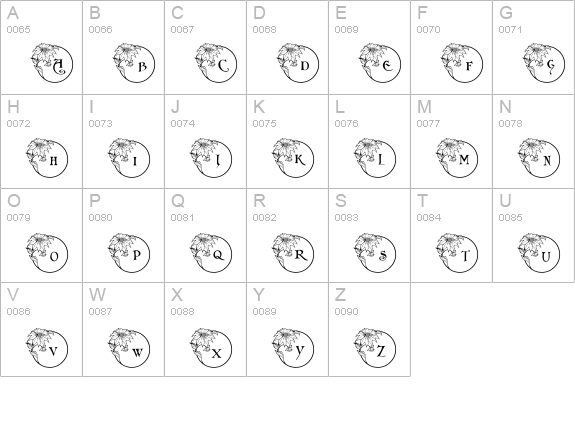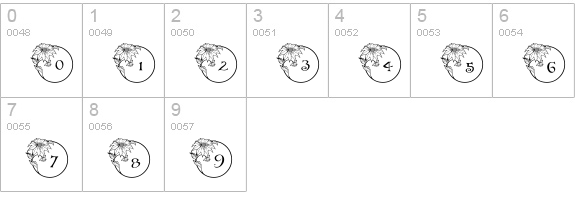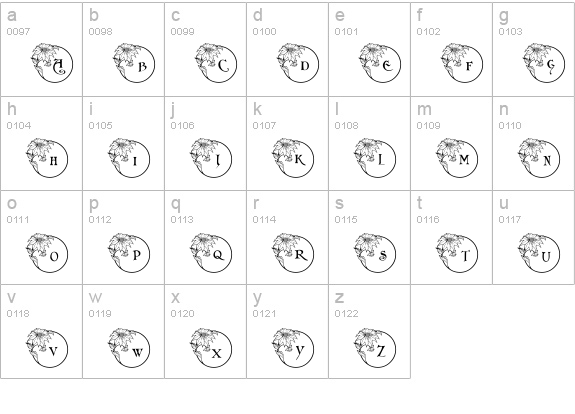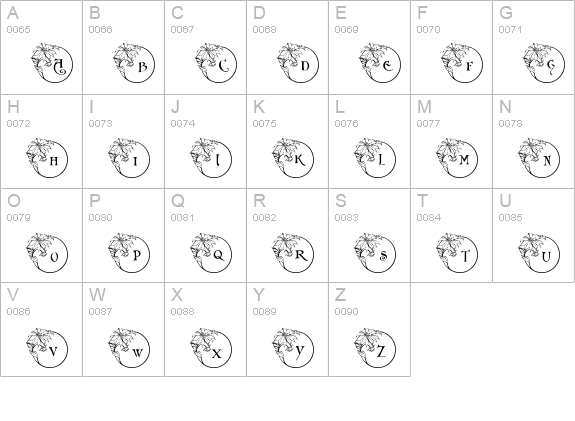
pf_xmas_flower1 Font Details
Introducing pf_xmas_flower1, a delightful and festive font that captures the essence of the holiday season. This whimsical typeface is perfect for adding a touch of cheer to your designs, whether it be greeting cards, invitations, or holiday-themed crafts. With its intricate floral details and charming letterforms, pf_xmas_flower1 exudes a sense of warmth and joy, making it the ideal choice for spreading holiday cheer. Each character is beautifully crafted, combining delicate flower patterns and elegant curves to create a truly unique and eye-catching display. What sets pf_xmas_flower1 apart is not just its stunning design, but also its accessibility. This font is freely available to download at FontsMarket.com, allowing designers and enthusiasts alike to easily incorporate it into their projects without any barriers. Whether you're a professional designer or simply someone who loves to add a personal touch to your holiday creations, pf_xmas_flower1 is the perfect addition to your collection. So why not add a touch of whimsy and elegance to your holiday designs with pf_xmas_flower1? Download it for free at FontsMarket.com and let your creativity flourish this holiday season. Spread the joy and festive spirit with this beautiful font that is sure to make your designs stand out from the crowd.